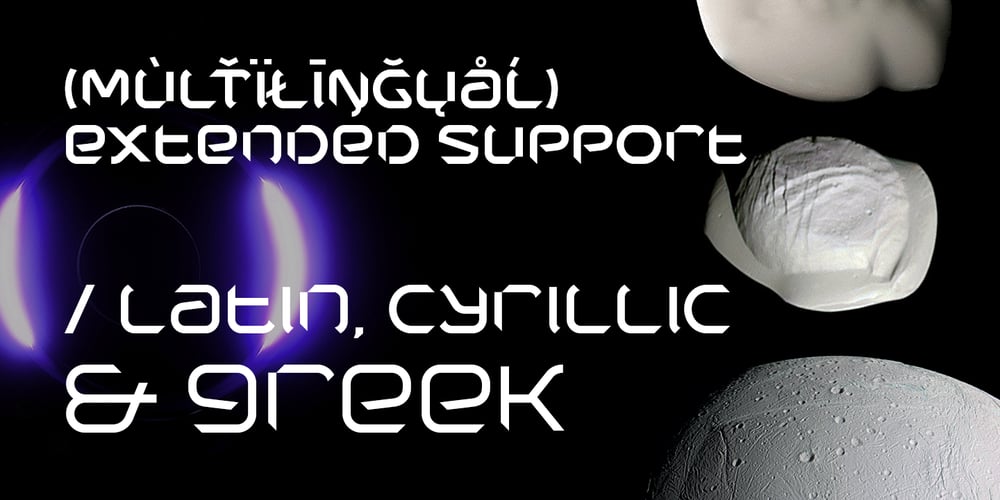
Areon Flux
Areon Flux font
Areon Flux Font Family was designed by Bogdan Balatchi and published by DePlictis Types. Areon Flux contains 3 styles and family package options. The future is right here, today, and Areon Flux comes to point that out. Areon Flux is a font family consisting in three weights that makes it a notable choice for designers that have to do with techy, futuristic layouts or printing materials. The lettering design appeal as sharp, powerful, distinctive and modular, remembering the upcoming space exploration opportunities that are ready to enlarge our horizons in the next years. Areon Flux family is designed and published in late ‘20/ early ’21 and has an established discount for more that 30% for all the weights when buyed together that makes it a versatile fresh and modern display not to be missed by edgy designers. In March, 2024 I’ve finished some updates so now it comes with some notable improvements for a few letters and other revisions that are published fresh in the new 3.0 version.